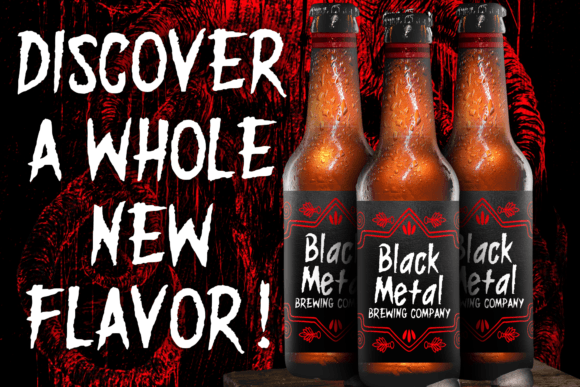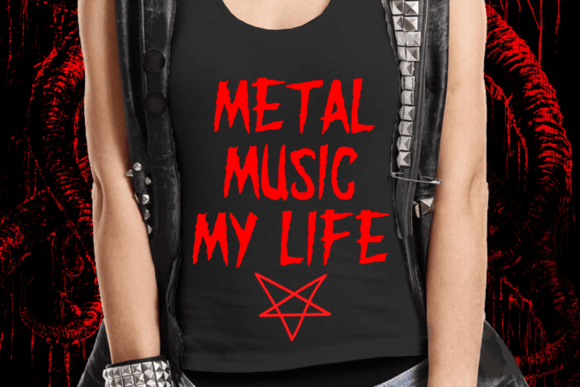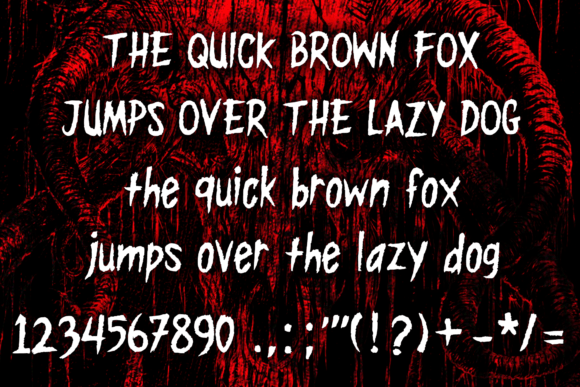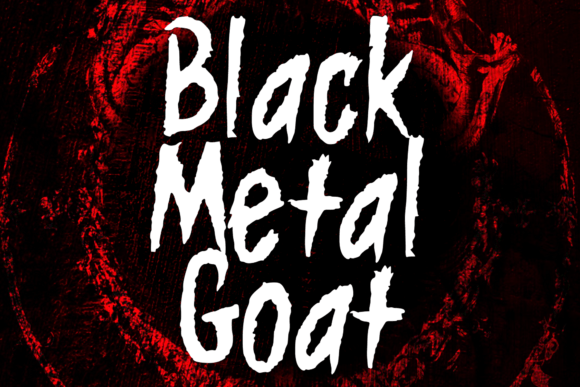
Unleash the Horror with Black Metal Goat Font: The Ultimate Grunge Addition
Are you a designer, crafty enthusiast, or horror fan looking for a font that embodies the eerie and spooky essence of the genre? Look no further than the Black Metal Goat Font, a skinny horror grunge font that draws inspiration from vintage horror movies, horror comics, and metal music. This font is designed to cater to all your horror and Halloween-themed needs, making it the perfect addition to your design arsenal.
Inspiration from the Dark Side
Black Metal Goat Font is a masterful blend of horror and grunge elements, evoking the nostalgia of vintage horror movies and comics. The font’s design is influenced by the raw energy and aggression of metal music, making it a unique and captivating choice for any horror-themed project. Whether you’re working on a scary book design, a Halloween party invitation, or a horror-themed merchandise, this font is sure to add a touch of eeriness and sophistication.
Endless Possibilities
One of the best things about Black Metal Goat Font is its versatility. You can use it for a wide range of projects, from:
- Merchandise: t-shirts, clothing, and accessories that scream horror and style
- Book designs: create a chilling atmosphere for your horror novels or comics
- Halloween party needs: invitations, decorations, and party favors that will leave your guests screaming
- Greeting cards: send a spooky greeting to your friends and family
- Stickers and posters: create eye-catching promotional materials for your horror-themed events or products
- Banners: grab attention with a bold and eerie message
Why Choose Black Metal Goat Font?
So, what sets Black Metal Goat Font apart from other fonts in the market? Here are a few reasons why designers and crafters love this font:
- Unique and authentic horror grunge feel: Black Metal Goat Font captures the raw energy and aggression of metal music and horror movies, making it a standout choice for horror-themed projects
- Highly legible: despite its grunge texture, the font remains clear and readable, making it perfect for body text and headlines
Tips and Tricks for Using Black Metal Goat Font
To get the most out of Black Metal Goat Font, here are some tips and tricks to keep in mind:
- Experiment with different colors: the font looks great in bold, bright colors, but you can also try using it in metallic or neon colors for a more striking effect
- Mix and match with other fonts: combine Black Metal Goat Font with other fonts to create a unique and eye-catching typography
- Play with textures and effects: add an extra layer of depth to your design by applying textures or effects to the font
Black Metal Goat Font is a game-changer for designers and crafters looking to add a touch of horror and grunge to their projects. With its unique and authentic feel, high legibility, and ease of use, this font is perfect for a wide range of horror-themed applications. So why wait? Unleash the horror and get creative with Black Metal Goat Font today!